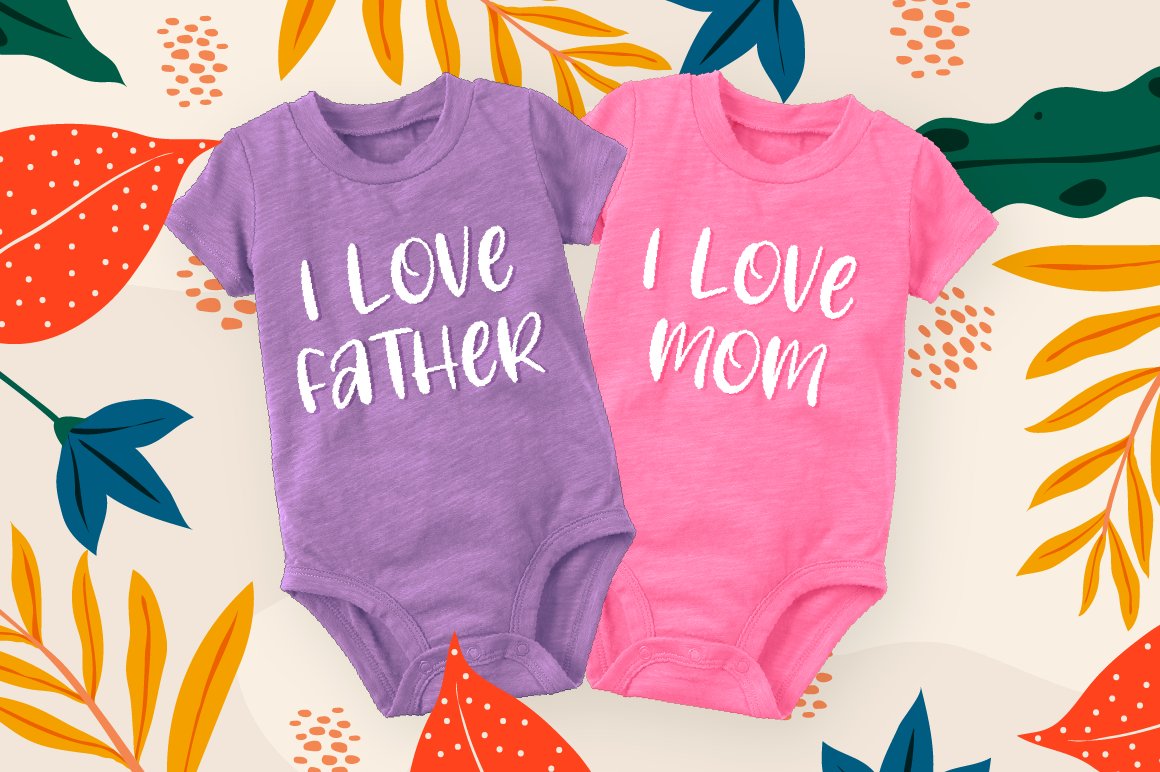
Mira Venn Chunky Sans Serif Font
Craftype is a playful display font. It’s perfect for your crafting projects, cards, posters, scrapbooks, shirts, packaging, party invitations, and all other things that need this fun and quirky typeface!
FEATURES
Multilingual
Numerals & Punctuation